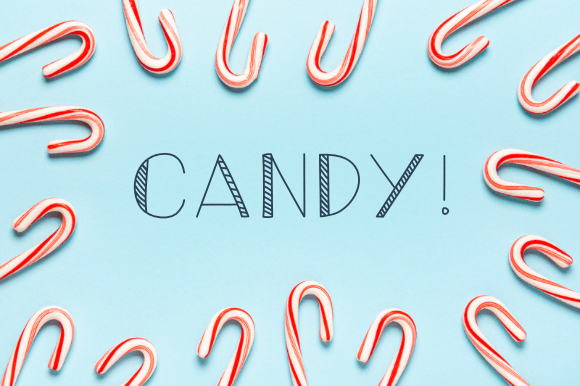
The Sweetest Font You’ll Ever Use: A Comprehensive Guide to Candy Font
As a designer, I’ve had my fair share of font struggles. I recall working on a Christmas-themed project, determined to create the perfect festive decor design. But, as I began typing out the text, I realized that my chosen font just wasn’t cutting it. The characters looked awkward, and the overall design felt off. That’s when I stumbled upon the Candy Font 🍬, a cute handwritten font that has since become a staple in my design toolkit.
A Personal Review: What I Love About Candy Font
So, what makes Candy Font so special? Here are a few things that I absolutely love:
- ✨ Beautiful and well-balanced characters that make it perfect for a wide range of crafty ideas
- ✅ Easy to read, even at smaller font sizes
- 🎄 Festive and fun, making it ideal for holiday-themed projects
- 💕 A sweet, handwritten feel that’s perfect for adding a personal touch to designs
While Candy Font is an amazing font, there are a few small quirks to be aware of:
- 🤔 Some characters may appear a bit narrow or tall, which can affect the overall flow of text
- ⚠️ Limited availability of special characters or glyphs, which may limit its use in certain projects
The Backstory Behind Candy Font
While the origins of Candy Font are shrouded in mystery, it’s easy to imagine a designer sitting by the Christmas tree, surrounded by candy and festive decorations, creating this sweet font as a labor of love. Perhaps the designer wanted to create a font that would bring joy and whimsy to holiday-themed projects. Whatever the inspiration, Candy Font is a true gem.
| Font Name | Candy Font |
| Author | PauliinaPrattDesign |
| What is Candy Font best used for? | Candy Font is perfect for holiday-themed projects, such as Christmas crafts, festive decor, and more! |
| Is Candy Font suitable for body text? | While Candy Font is beautiful, it’s best used for headings or short paragraphs. Its unique character set and handwritten feel make it less suitable for long blocks of text. |
In conclusion, Candy Font is a delightful addition to any designer’s toolkit. Its sweet, handwritten feel and festive vibe make it perfect for holiday-themed projects. With its ease of use and versatility, it’s no wonder that Candy Font has become a favorite among designers and crafters alike.